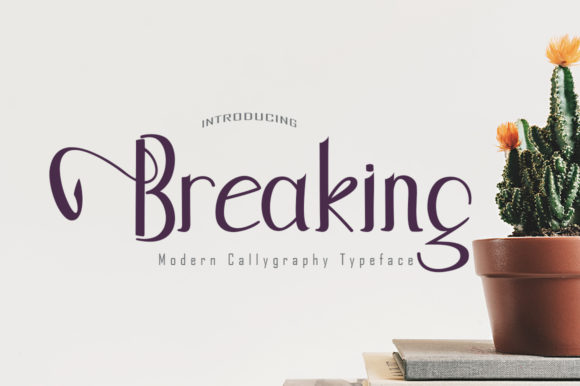
Step into the realm of captivating typography with Breaking Font, a mesmerizing handwritten typeface that will infuse your designs with a touch of undeniable charm. Immerse yourself in the allure of its graceful curves and elegant strokes, crafted to evoke emotions and leave a lasting impression.
Breaking Font's versatility transcends the ordinary, allowing you to effortlessly embellish a wide range of creative projects. From enchanting invitations to heartfelt love letters, this font will seamlessly adapt to your vision, adding a touch of sophistication and timeless beauty to every word. Its unique character will transform your designs into captivating masterpieces that resonate with your audience.
Indulge in the artistry of Breaking Font and elevate your designs to new heights. Let its delicate lines dance across your creations, captivating the hearts of those who behold them. Each letterform is a testament to the boundless power of typography, empowering you to convey messages with an emotional depth that transcends mere words.
Unleash the full potential of Breaking Font and experience the transformative power of exceptional typography. Its alluring charm will captivate your audience, leaving an unforgettable mark on their minds. Embrace the beauty of Breaking Font and witness the magic it brings to your creative endeavors.